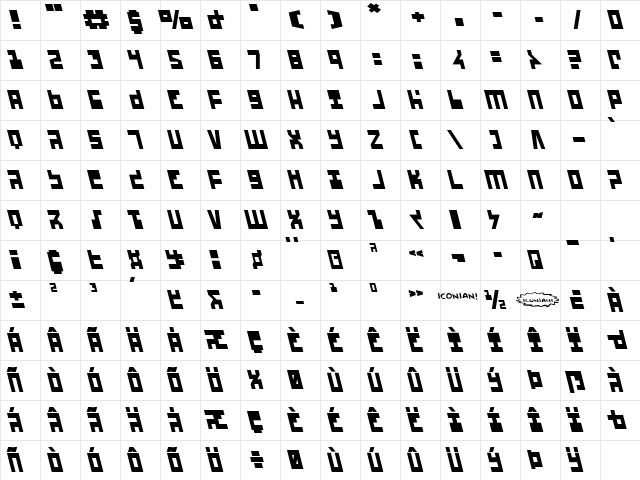
UFO Hunter Leftalic Italic Free Font
UFO Hunter Leftalic Italic
Designer: Daniel Zadorozny
Complete UFO Hunter Leftalic Italic glyph index. Displaying only characters natively supported by UFO Hunter Leftalic Italic font.
Design Context for UFO Hunter Leftalic
UFO Hunter Leftalic is a composed and adaptable typeface that performs quietly and consistently across a wide range of design contexts. The slanted form adds forward momentum and visual energy.
Pro Tip: Use UFO Hunter Leftalic for emphasis, pull quotes, and subheadings where its slanted energy can add rhythm to the layout.